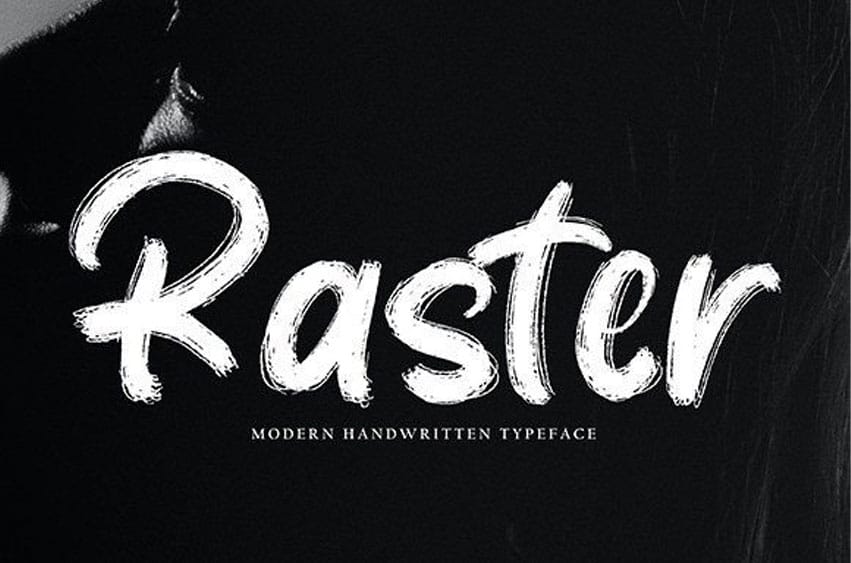
Raster Font is a rough handwritten font, perfect for many different projects such as quotes, logos, blog headers, posters, banding, letters, invitations, stationery, etc.